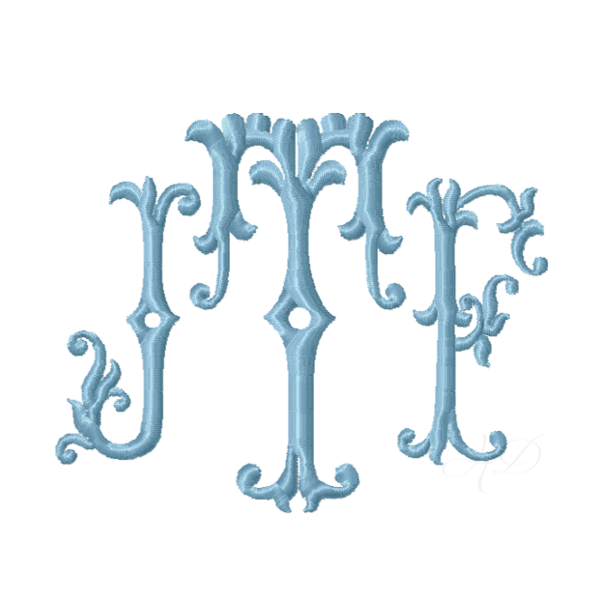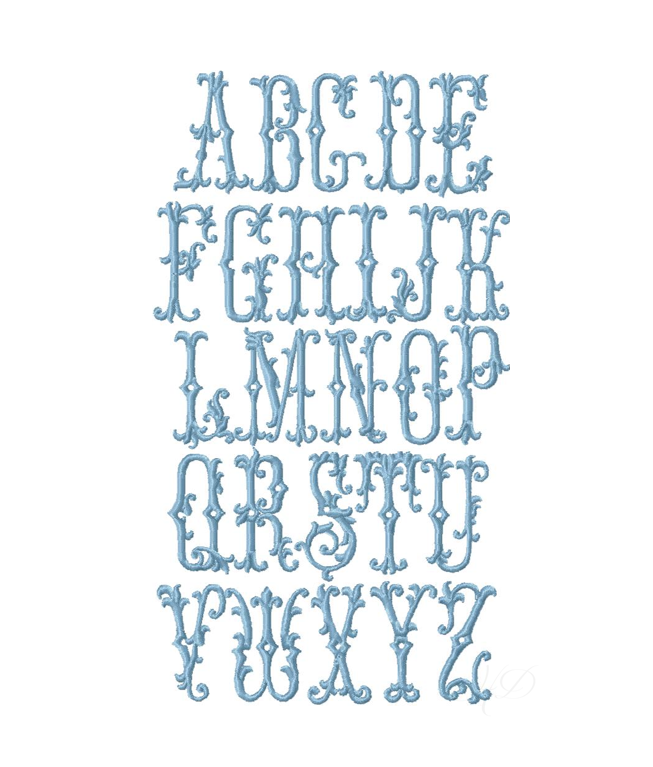
Filigree Scroll Embroidery Font 4x4 Package
Transform your embroidery projects with our Filigree Scroll Embroidery Font 4x4 Package. This exquisite set includes five sizes, from 1.5" to 3.5", crafted with satin stitching for a high-quality finish. Designed for embroidery machines, all fonts easily fit within a 4x4 hoop or larger, ensuring versatility for any project.